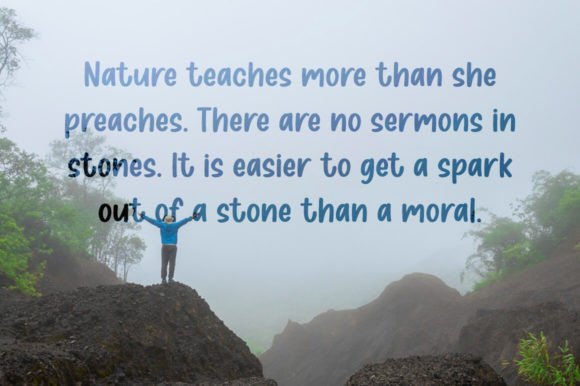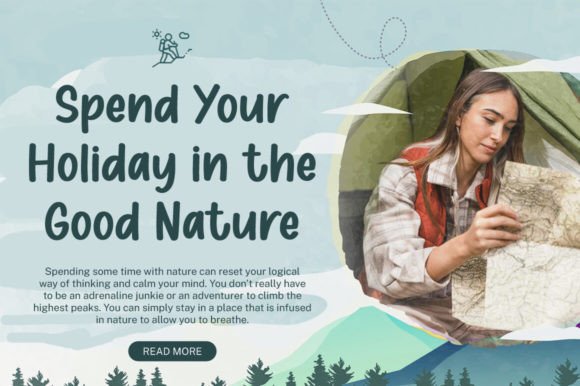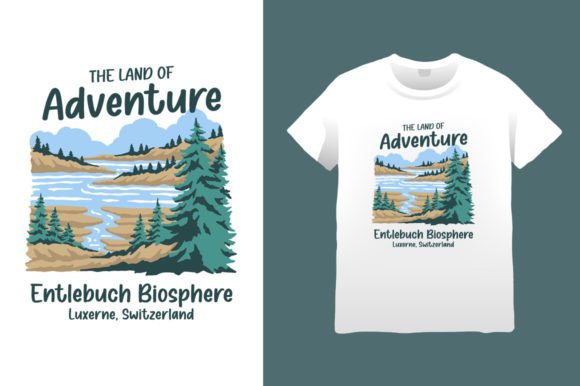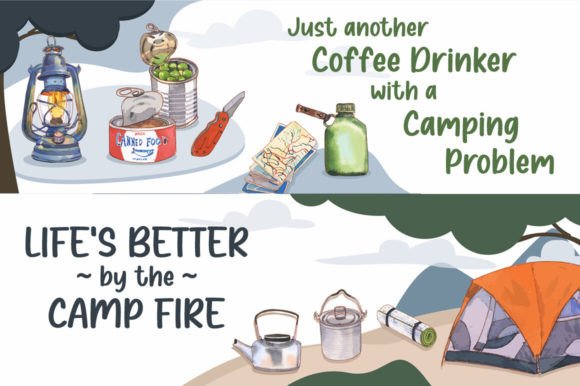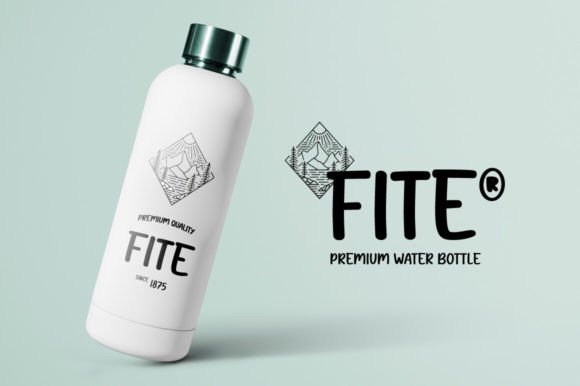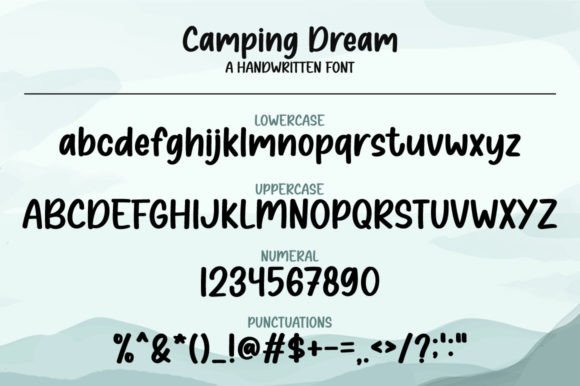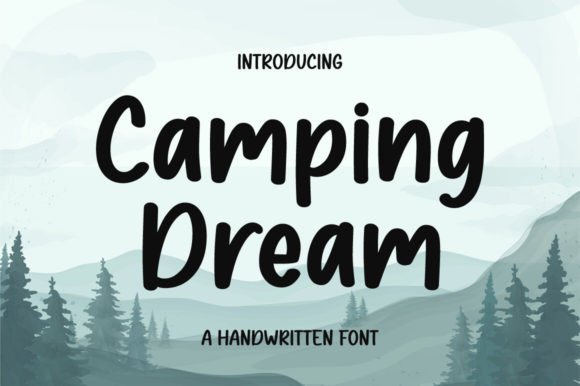
Camping Dream Font: Elevate Your Designs with a Personal Touch
Are you a designer, crafter, or educator looking for a font that adds a personal and realistic feel to your creations? Look no further than the Camping Dream Font. This delicate and simple-lettered handwritten font is perfect for all your chalkboard quotes, teaching materials, and design projects. In this article, we’ll dive into the features and benefits of the Camping Dream Font and explore how it can elevate your designs.
What is Camping Dream Font?
Camping Dream Font is a beautiful, handwritten font that boasts a charming and authentic look. Its delicate and simple lettering makes it perfect for creating chalkboard quotes, teaching materials, and other designs that require a personal touch. The font’s rustic feel will transport your audience to a world of warmth and coziness, making it ideal for projects that require a homespun feel.
Key Features of Camping Dream Font
- Delicate and Simple Lettering: The Camping Dream Font features delicate and simple lettering that is easy to read and looks great in various design applications.
- Authentic Look: The font’s authentic look will add a personal and realistic feel to your designs, making them stand out from the crowd.
- Chalkboard-Inspired: The font’s chalkboard-inspired look makes it perfect for creating quotes, posters, and other designs that require a rustic feel.
- Handwritten: The Camping Dream Font is a handwritten font, which gives it a unique and personal touch that is hard to replicate with generic fonts.
Benefits of Using Camping Dream Font
So, why should you choose the Camping Dream Font for your designs? Here are just a few benefits of using this beautiful font:
- Personal Touch: The Camping Dream Font adds a personal touch to your designs, making them more relatable and engaging.
- Versatility: The font is versatile and can be used in various design applications, from chalkboard quotes to teaching materials.
- Unique Look: The font’s unique look will set your designs apart from the crowd and make them more memorable.
Who Can Benefit from Camping Dream Font?
The Camping Dream Font is perfect for a variety of designers, crafters, and educators, including:
- Teachers: Teachers can use the font to create engaging and interactive teaching materials, such as chalkboard quotes, worksheets, and presentations.
- Designers: Designers can use the font to create unique and personalized designs, such as posters, flyers, and brochures.
- Crafters: Crafters can use the font to create handmade cards, gift tags, and other paper crafts.
- Small Business Owners: Small business owners can use the font to create branding materials, such as logos, business cards, and social media graphics.